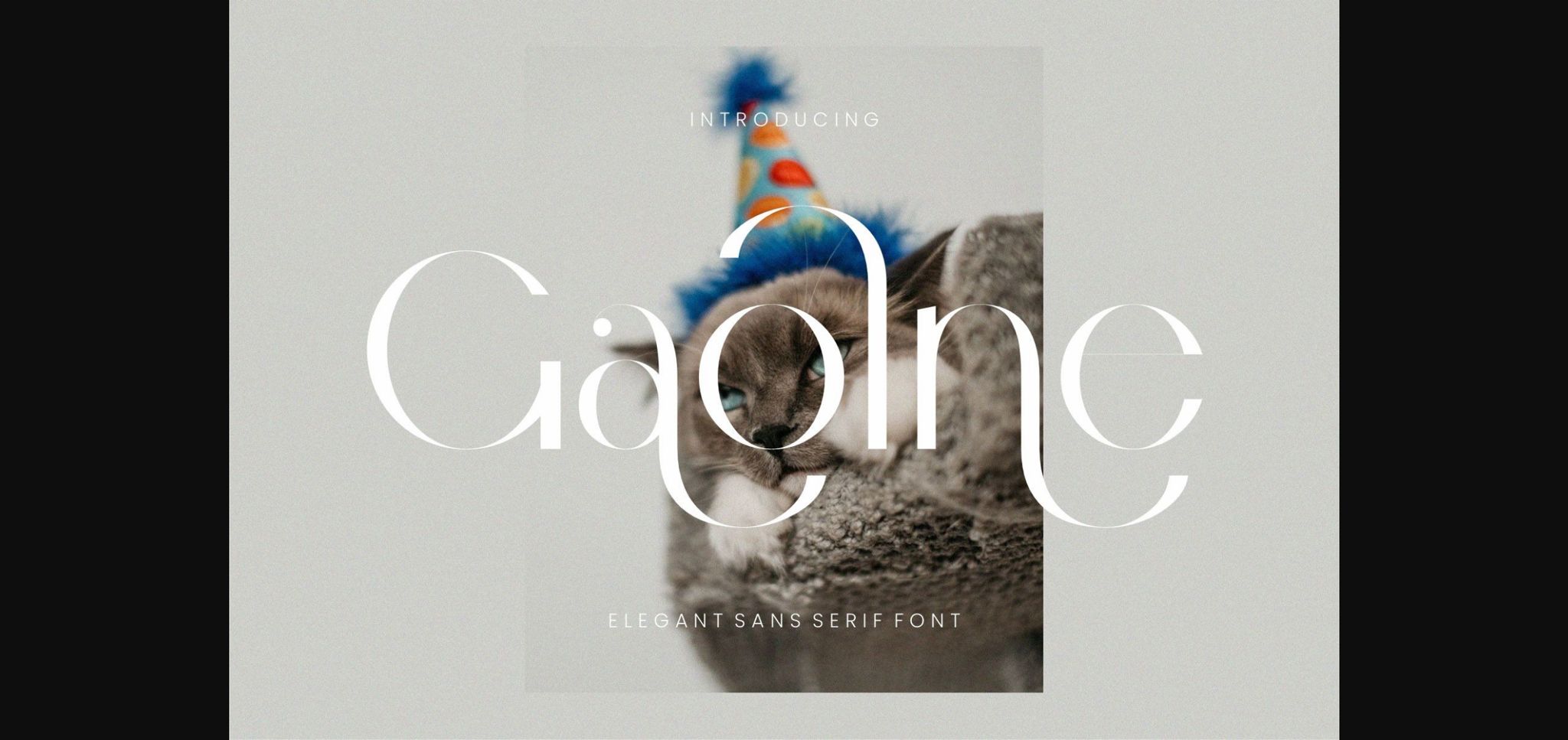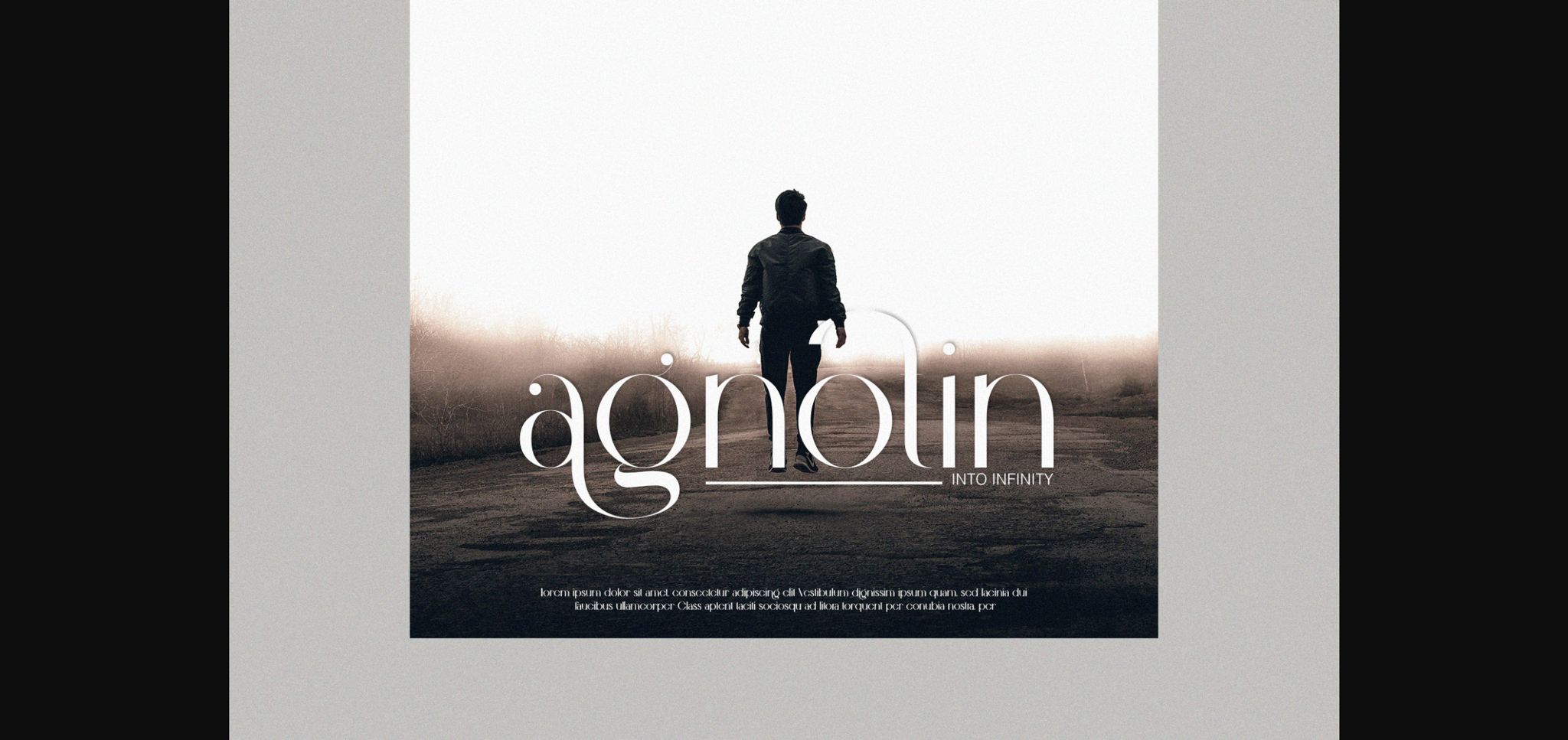
About Gaolne Font
Gaolne is a sophisticated, charming sans serif font with a fashionable touch. Specially designed for luxury, elegant, feminine projects, this font is perfectly suitable for creating modern, chic designs. This font is PUA encoded which means you can access all the glyphs and ligatures with ease!